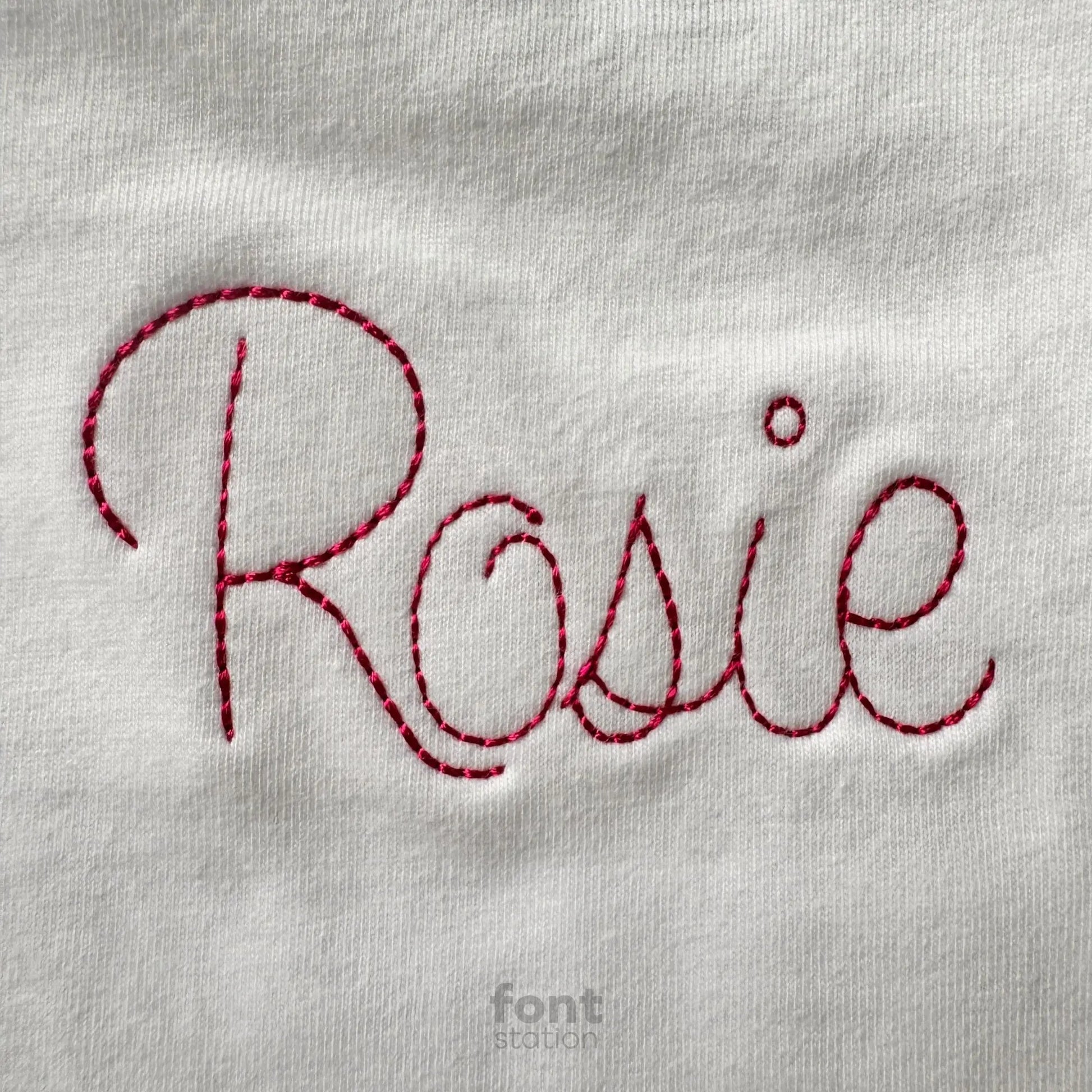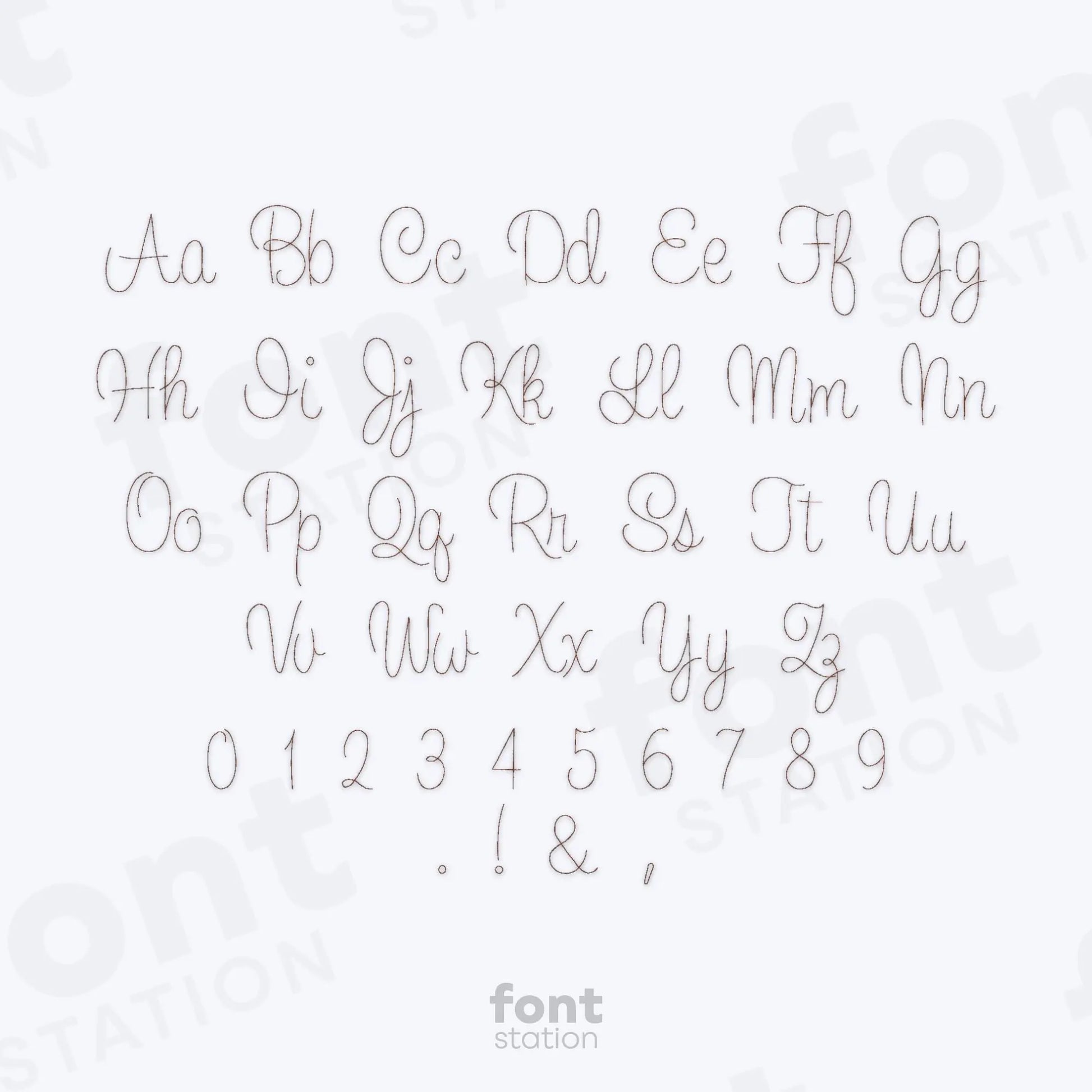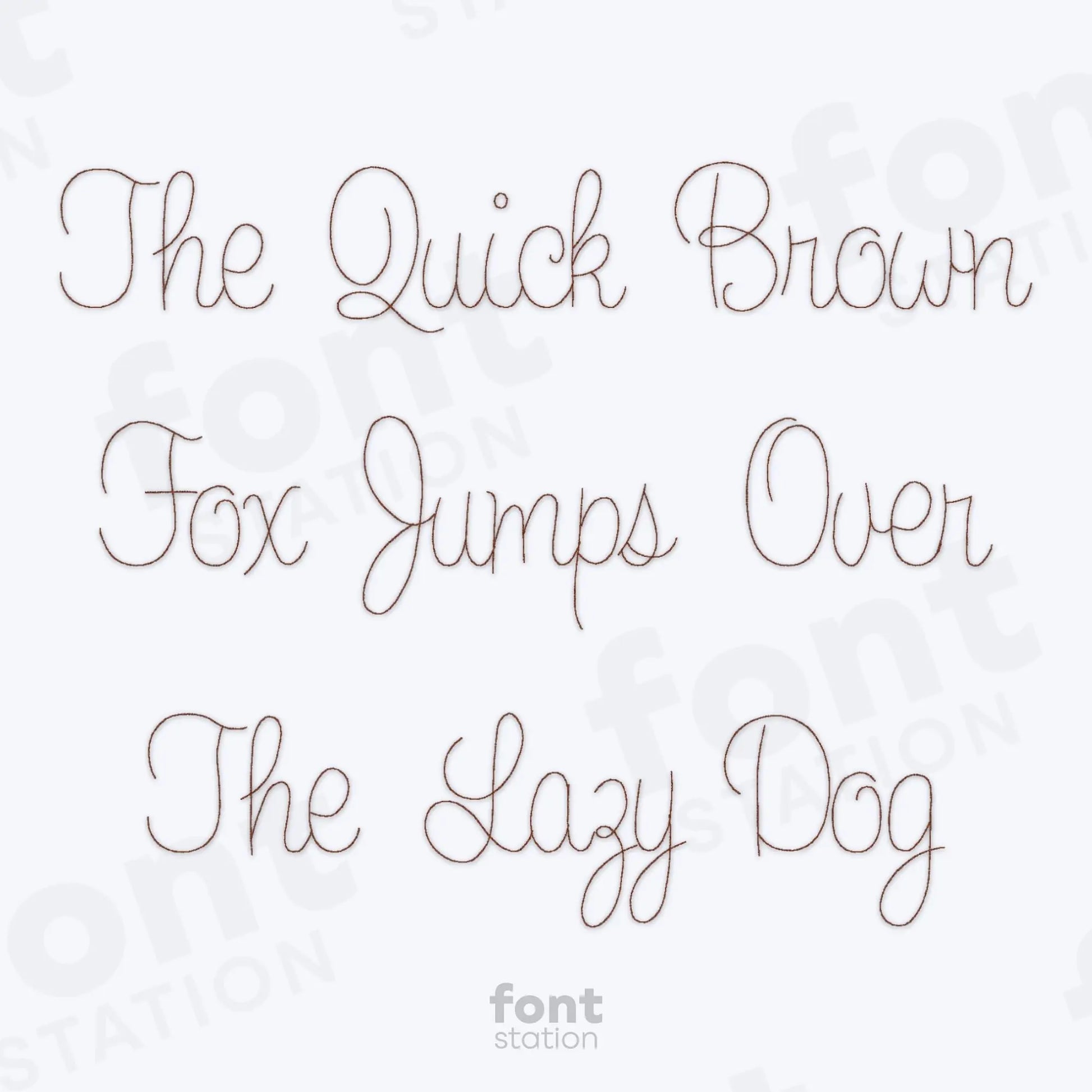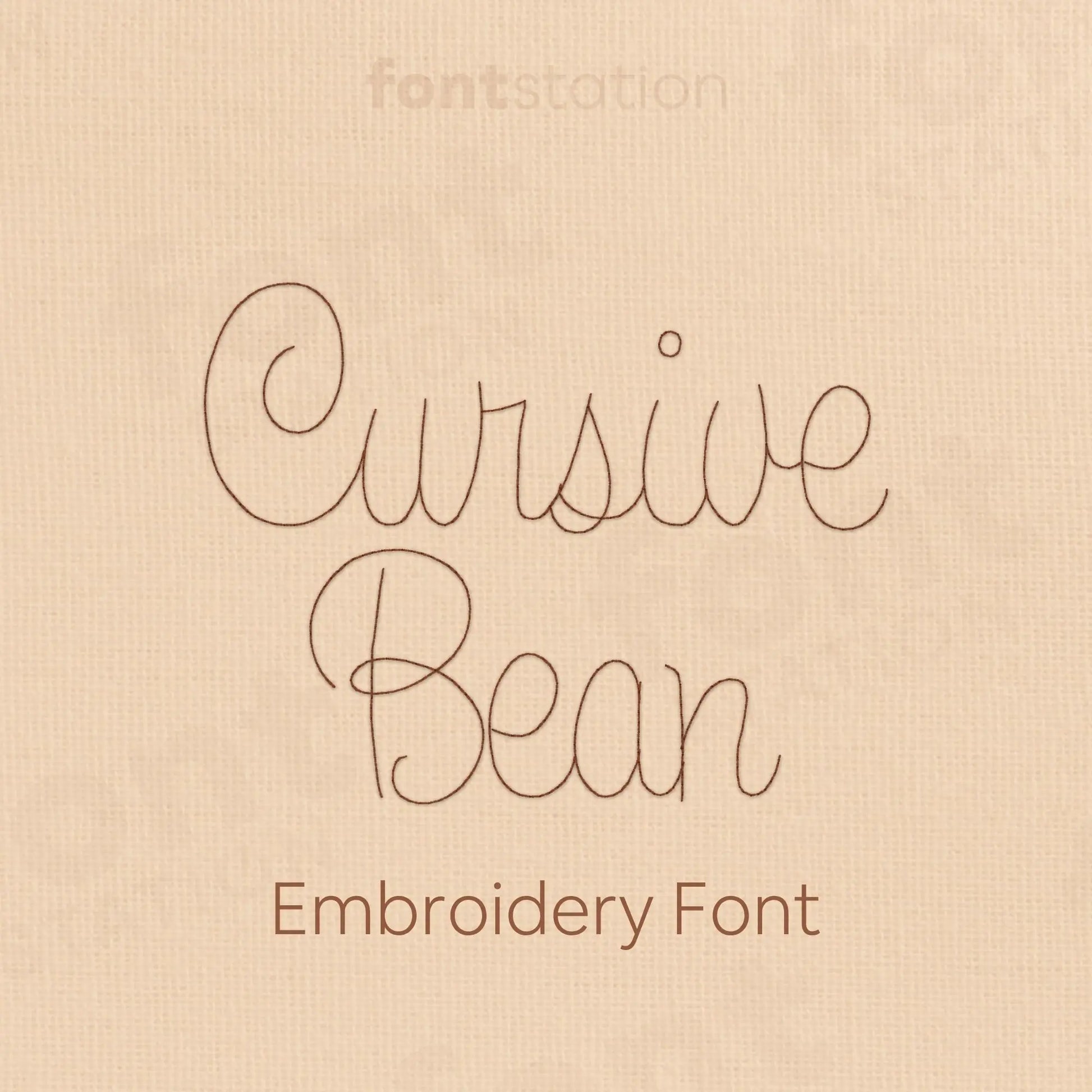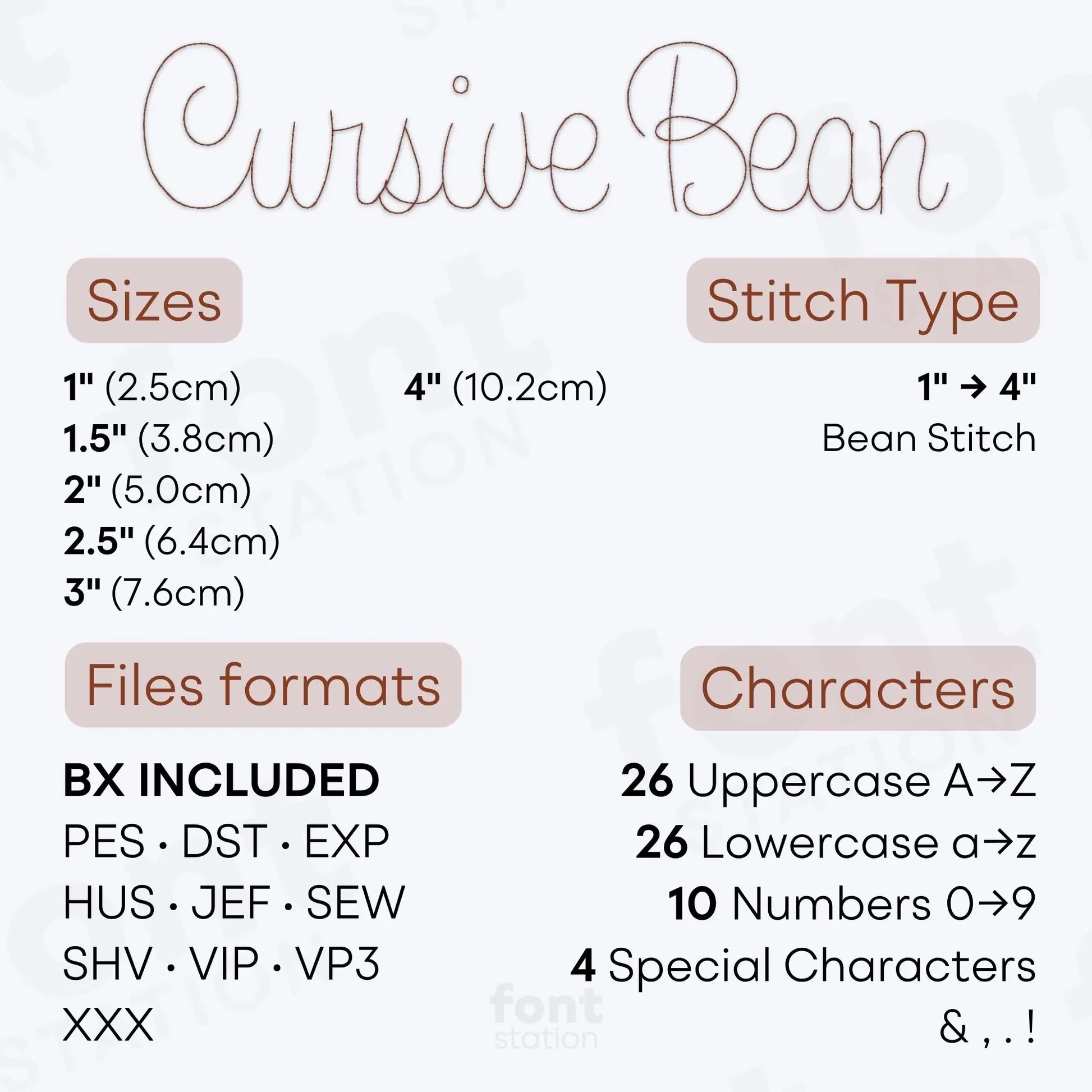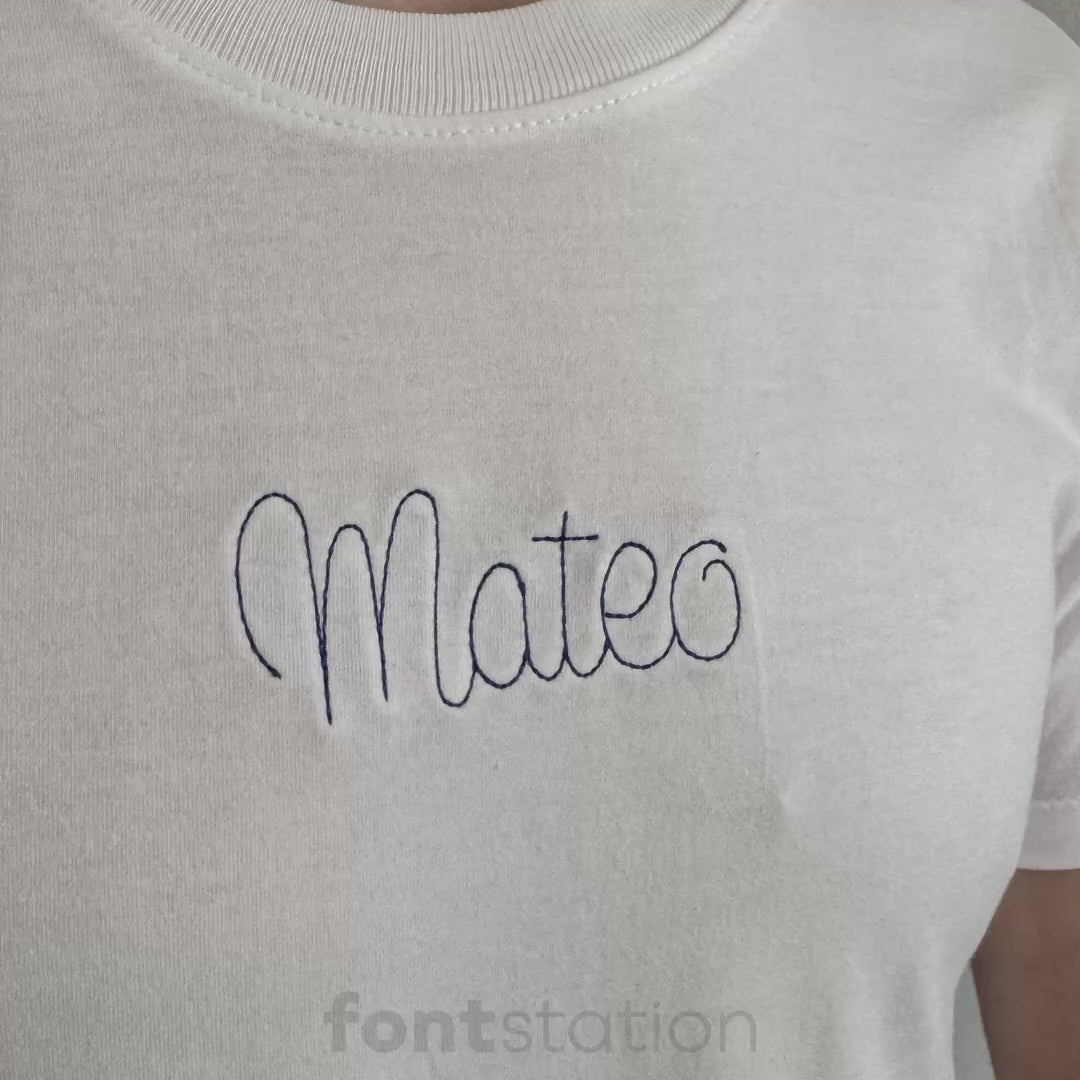
Cursive Bean Embroidery Font
Introducing our Cursive Bean embroidery font, a thin handwritten alphabet with fine line letters that stitch beautifully on your embroidery machine. Perfect for delicate designs and any elegant project.
About the Cursive Bean Embroidery Font
Bean Stitch: 1", 1.5", 2", 2.5", 3" y 4"
Characters: 26 uppercase, 26 lowercase, 10 numbers y symbols & , . !
Our Cursive Bean embroidery font brings a thin handwritten bean stitch style to your embroidery projects.
This delicate machine embroidery font features a fine line cursive alphabet with soft, single line letters designed for a light handwritten look. Perfect for names, labels, baby gifts, minimalist details, and elegant embroidery designs, it adds a subtle, handmade touch to every project.